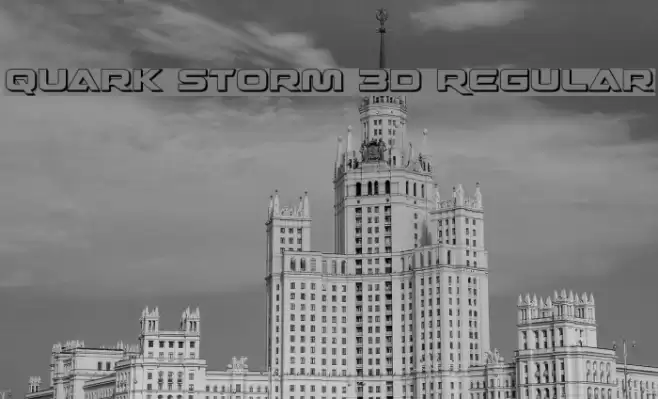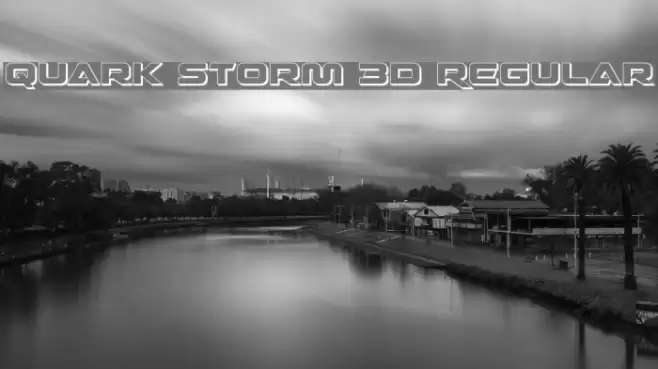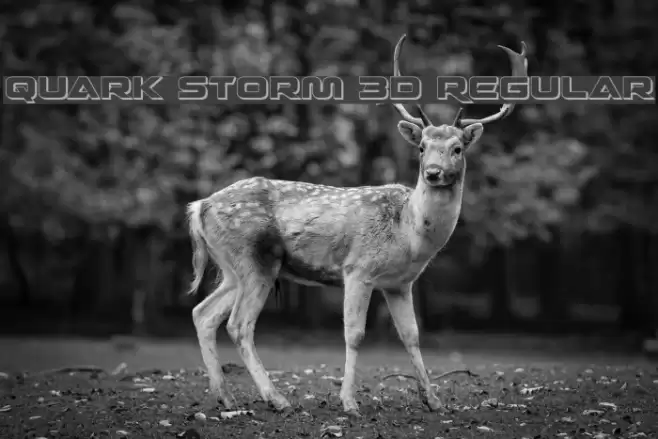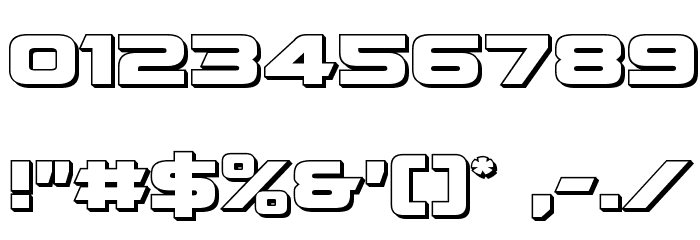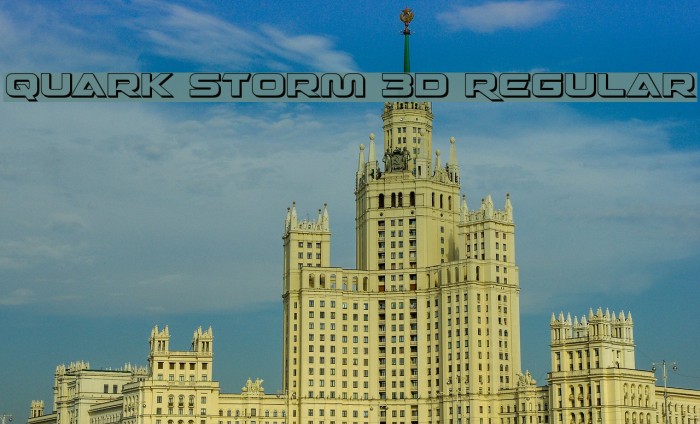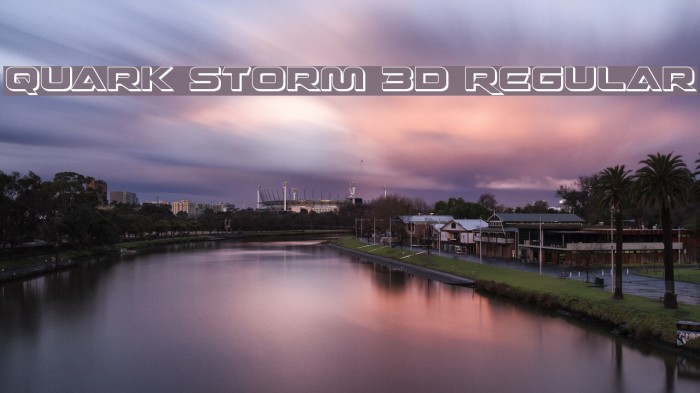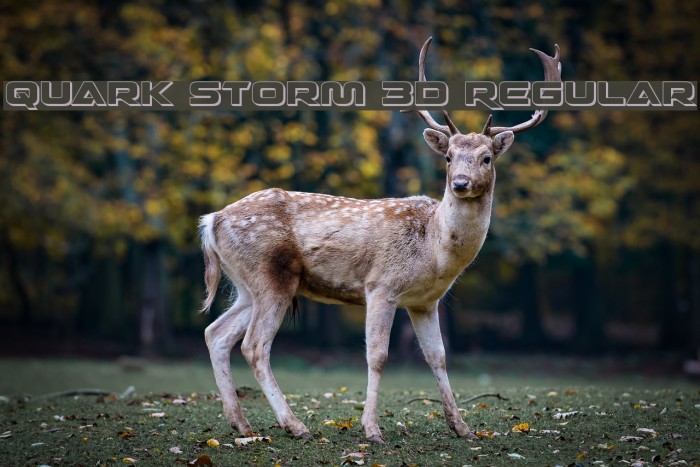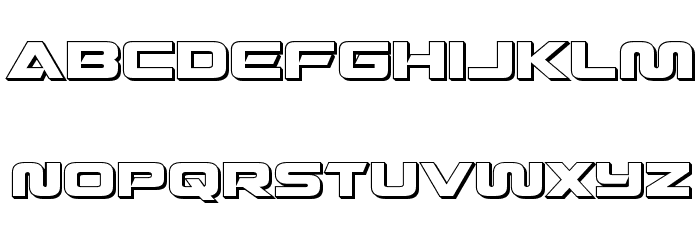
Quark Storm 3D Regular Font
Quark Storm 3D Regular Description
This font features a bold, futuristic design with a 3D effect that gives each character a sense of depth and dimension. The letters are constructed with sharp angles and geometric shapes, creating a dynamic and modern appearance. The uppercase and lowercase letters maintain a consistent style, with the uppercase being more prominent and eye-catching. The numbers and special characters follow the same design principles, ensuring a cohesive look across all elements. This font is ideal for projects that require a strong, impactful visual presence.
A bold, futuristic 3D font with sharp angles and geometric shapes from Uncategorized fonts.
- Proposed Projects: Ideal for sci-fi themed designs, video game titles, posters, and branding that requires a modern, dynamic look.